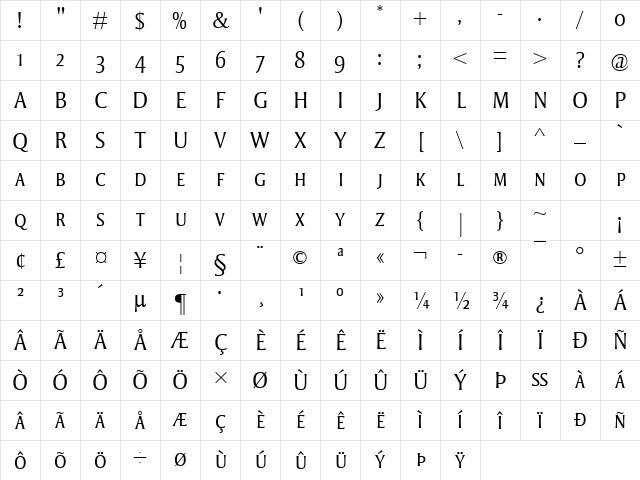
Strayhorn MT SC Light Regular
Foundry: Agfa Monotype Corporation
Strayhorn MT SC Light Family
Design Context for Strayhorn MT SC Light
Strayhorn MT SC Light is a composed and adaptable typeface that performs quietly and consistently across a wide range of design contexts. Its slender proportions lend an understated elegance to any composition.